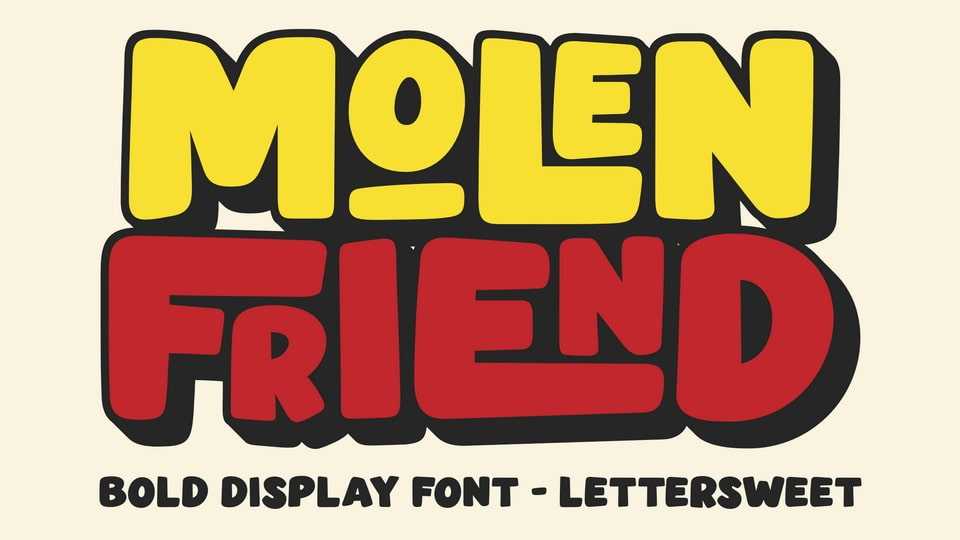
Download Molen Friend font, a bold display typeface designed to bring joy and playfulness to all your creative projects. With its rounded, cute, and expressive letterforms, Molen Friend is perfect for kid-themed designs, cartoons, food packaging.